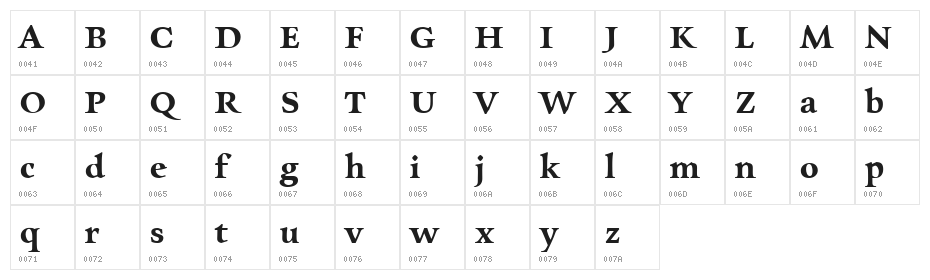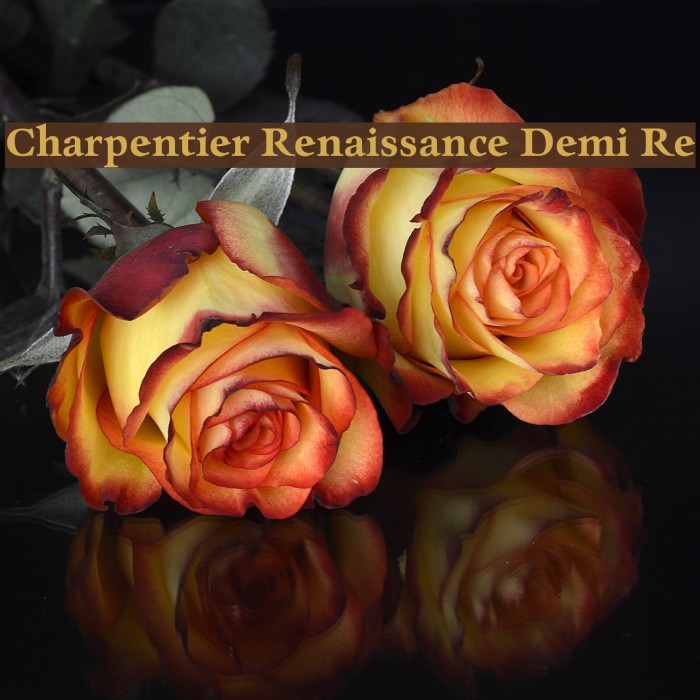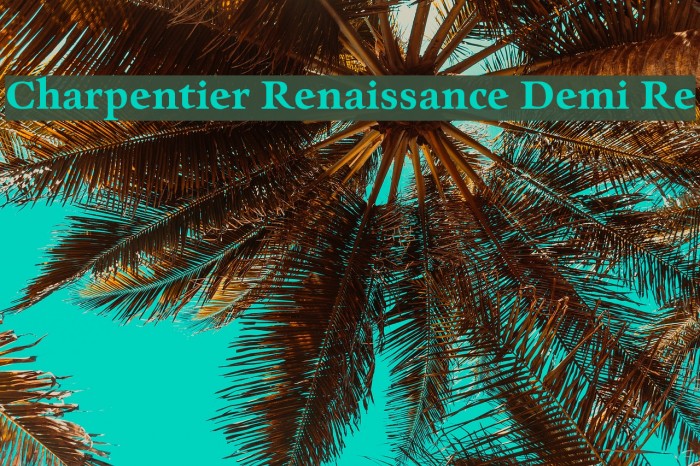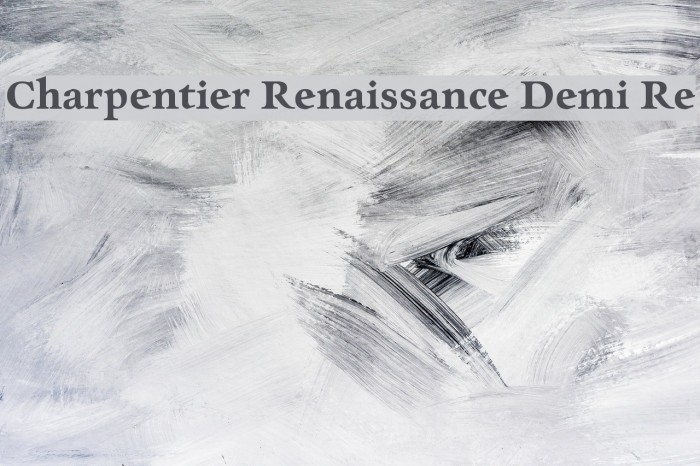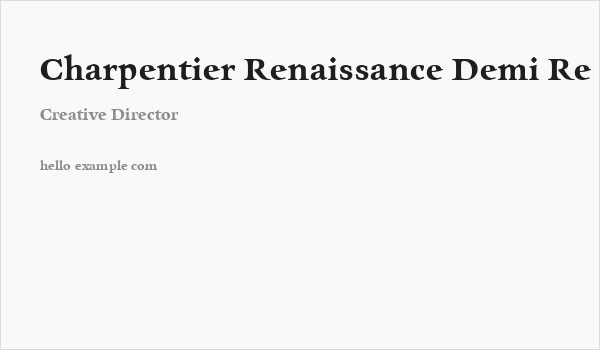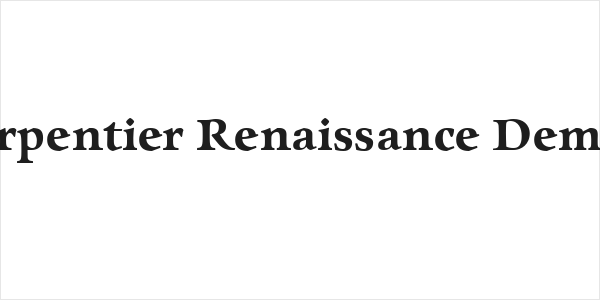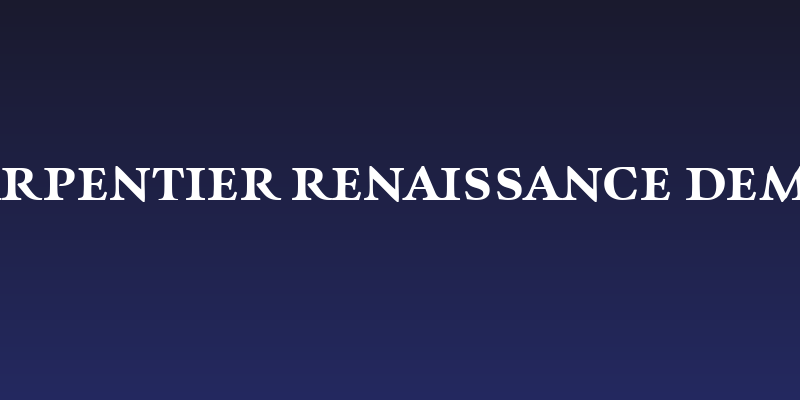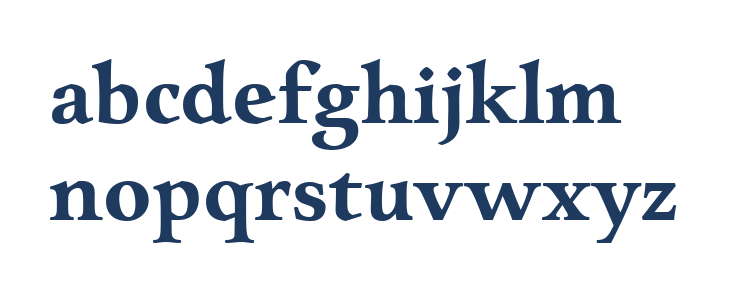
Charpentier Renaissance Demi Re Font
Charpentier Renaissance Demi Re Description
This font exudes a classic and elegant style, characterized by its serif features that provide a traditional and timeless appearance. The uppercase letters are bold and commanding, while the lowercase letters maintain a balanced and harmonious flow. The strokes are moderately thick, offering a medium contrast that enhances readability without sacrificing style. The overall design is reminiscent of Renaissance typography, with a touch of modern refinement. This font is well-suited for projects that require a sophisticated and authoritative look, such as formal invitations, book covers, or branding materials.
| Use Case | Headlines, Branding, Editorial Design |
| Proposed Projects | Ideal for formal invitations, book covers, branding materials, and editorial design. |